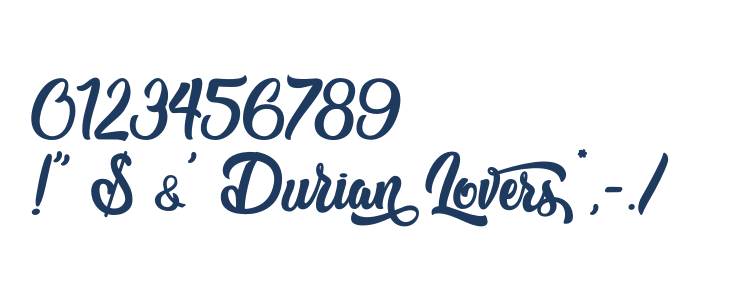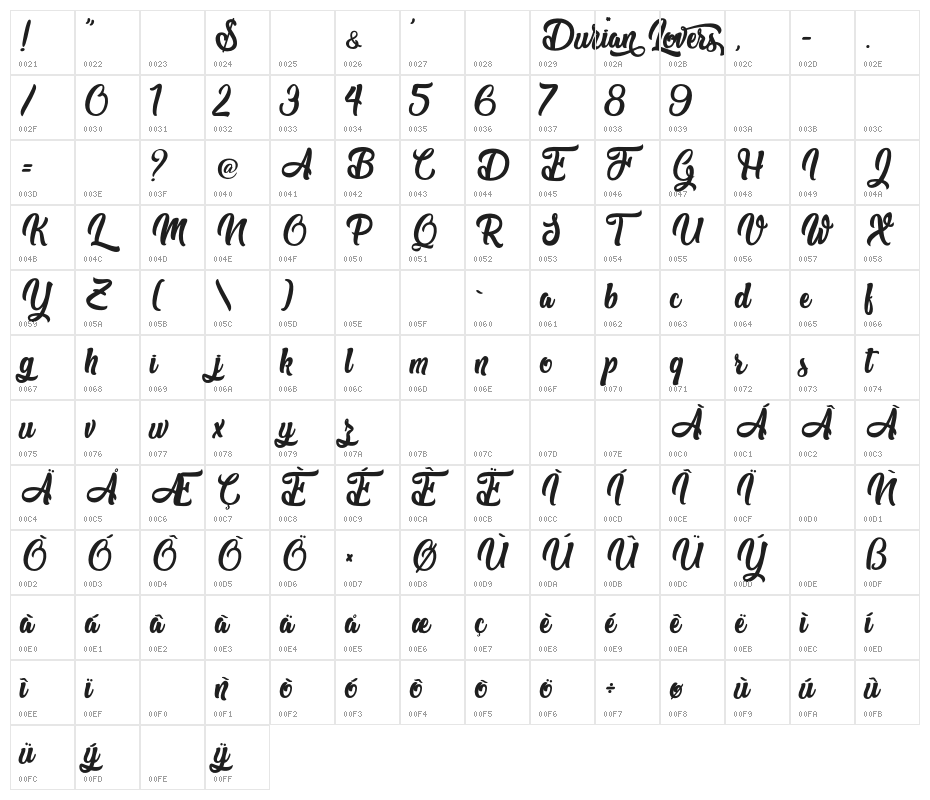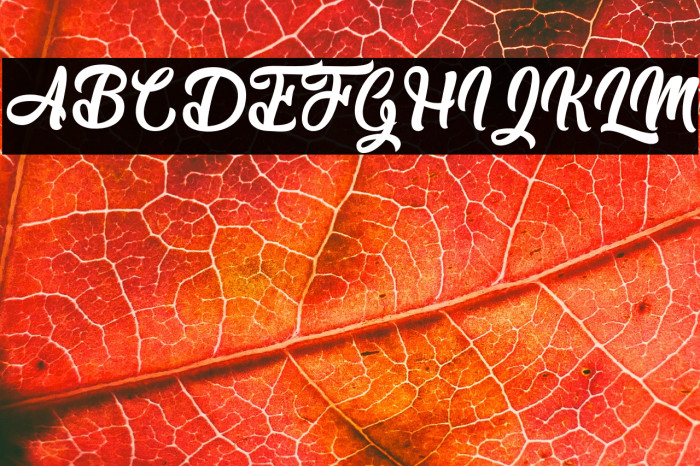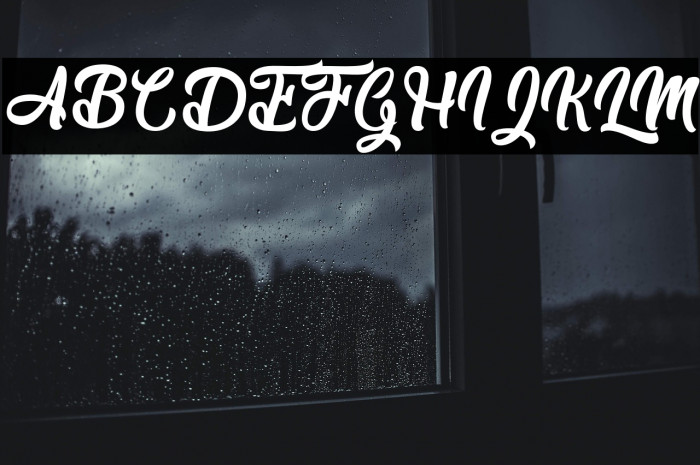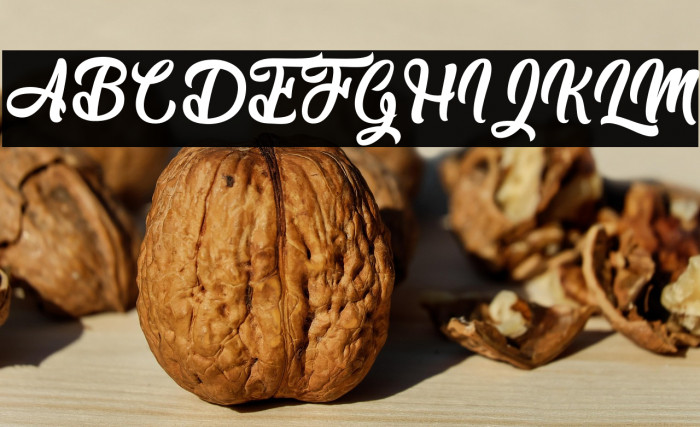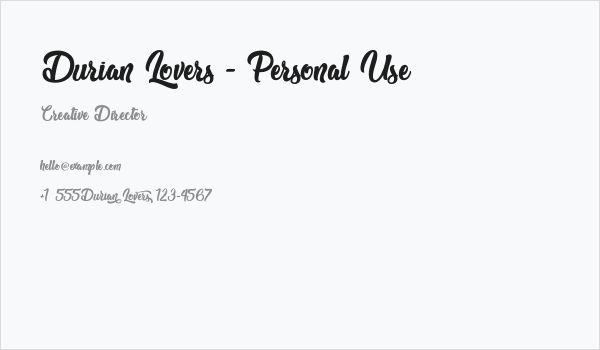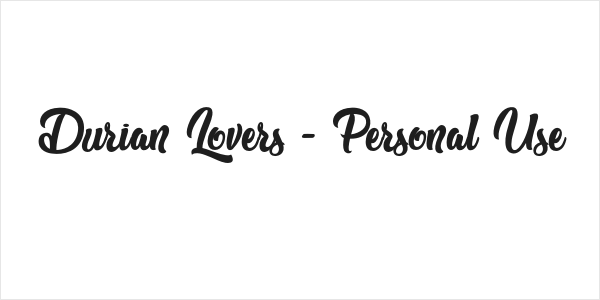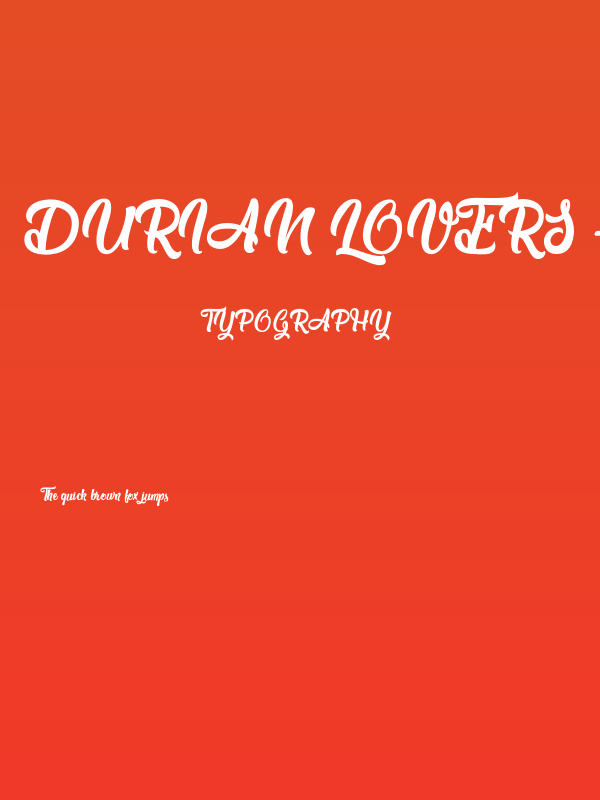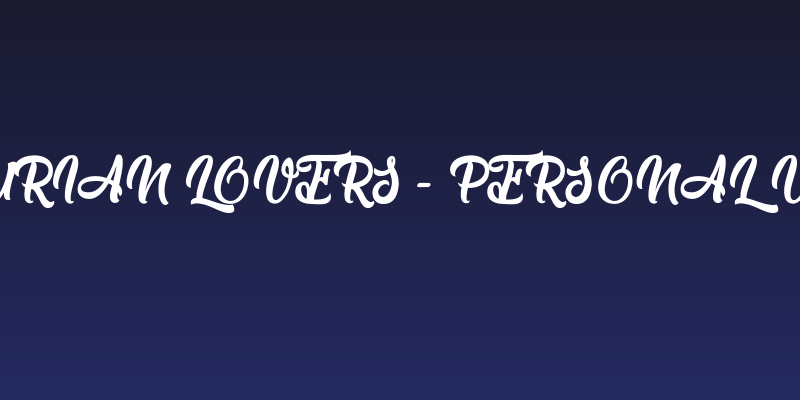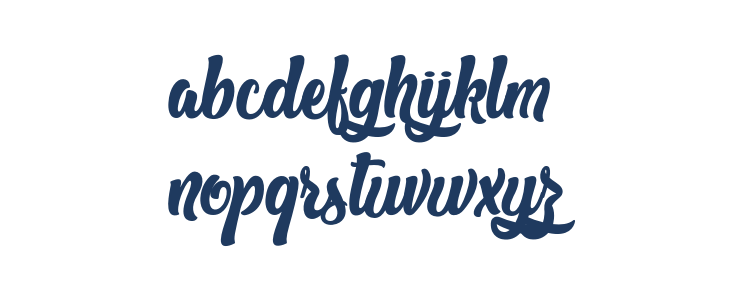
Durian Lovers - Personal Use Font
Durian Lovers - Personal Use Description
This font features a bold and expressive script style, characterized by its flowing, cursive letterforms. The uppercase letters are elegantly curved with distinctive loops and swashes, giving them a dynamic and lively appearance. The lowercase letters maintain a consistent style, with smooth connections and a playful, handwritten feel. The numerals are bold and rounded, complementing the overall aesthetic. Special characters are creatively designed, adding to the font's decorative appeal. This font exudes a sense of fun and creativity, making it suitable for projects that require a personal and artistic touch.
| Proposed Projects | Ideal for greeting cards, invitations, branding, and creative design projects. |